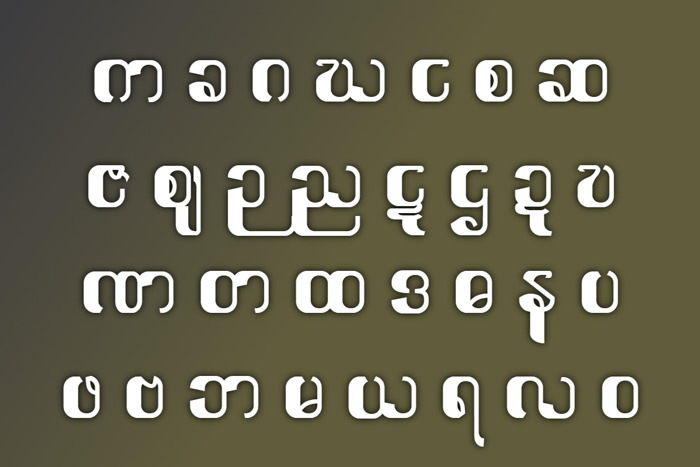
Ayar Juno Font
Ayar Unicode fonts are produced in major Myanmar ethnic languages derived from Brahmi script and in various typefaces. Ayar Unicode group is currently developing other Unicode fonts for the rest of the ethnic languages that have their origin in Brahmi script.